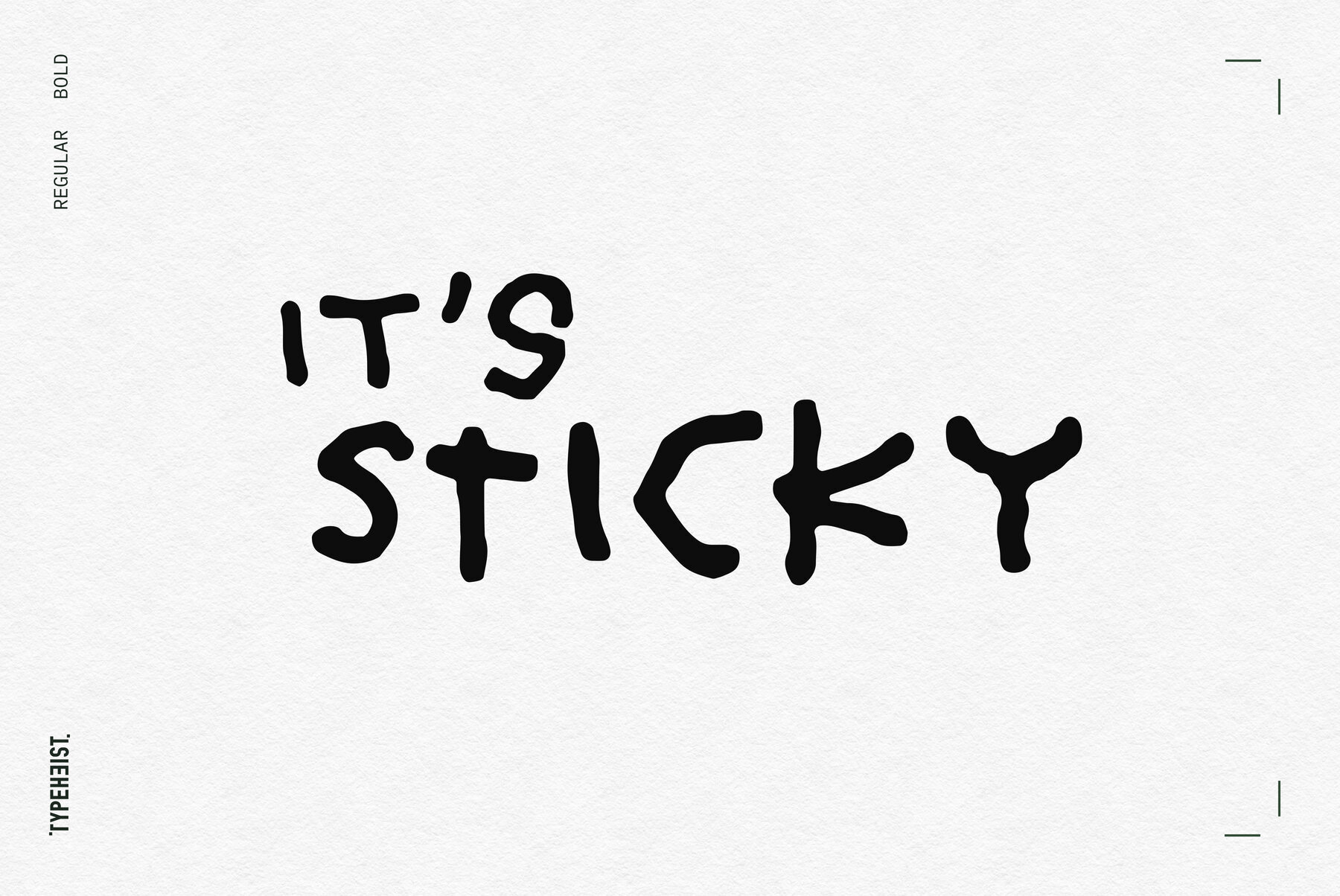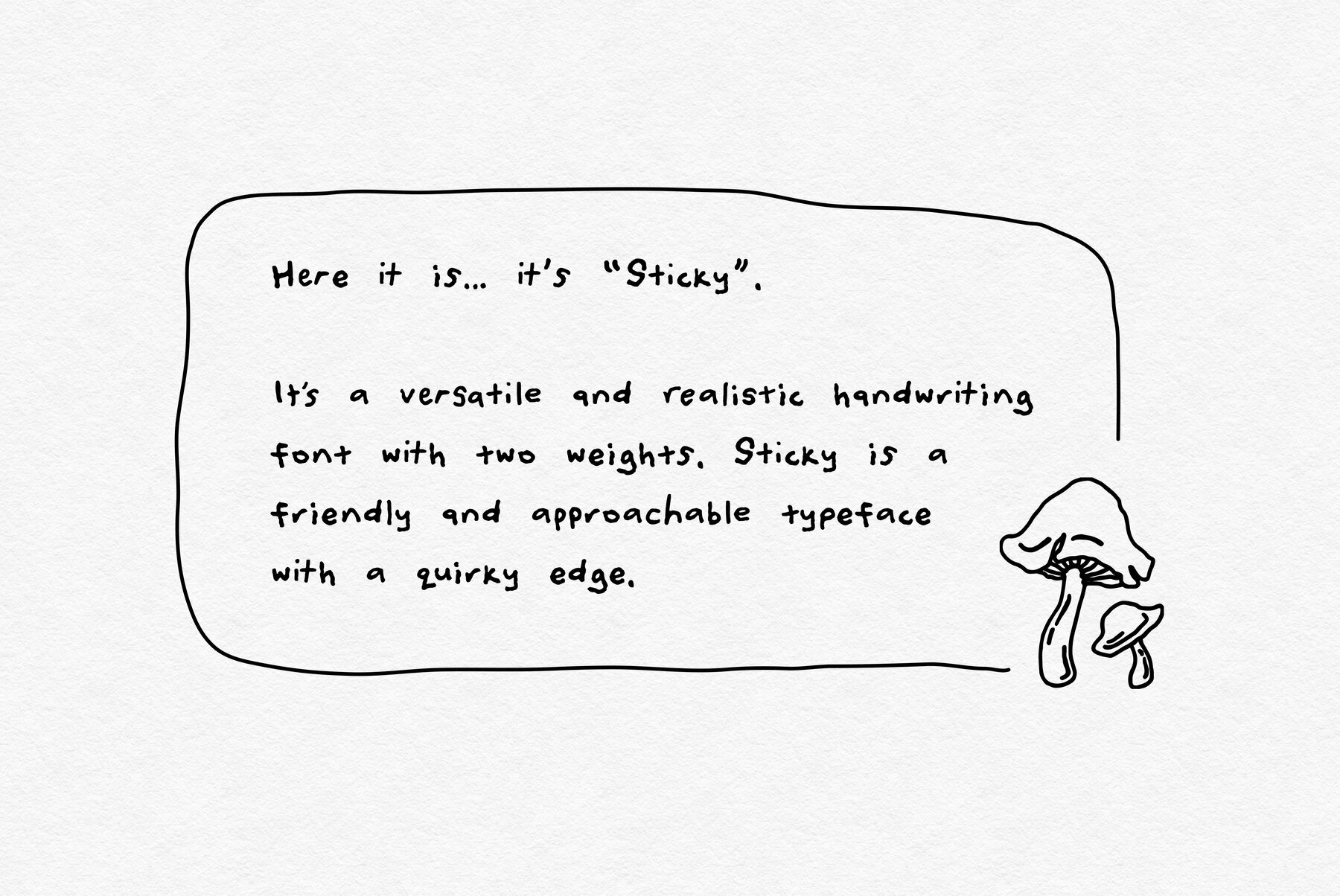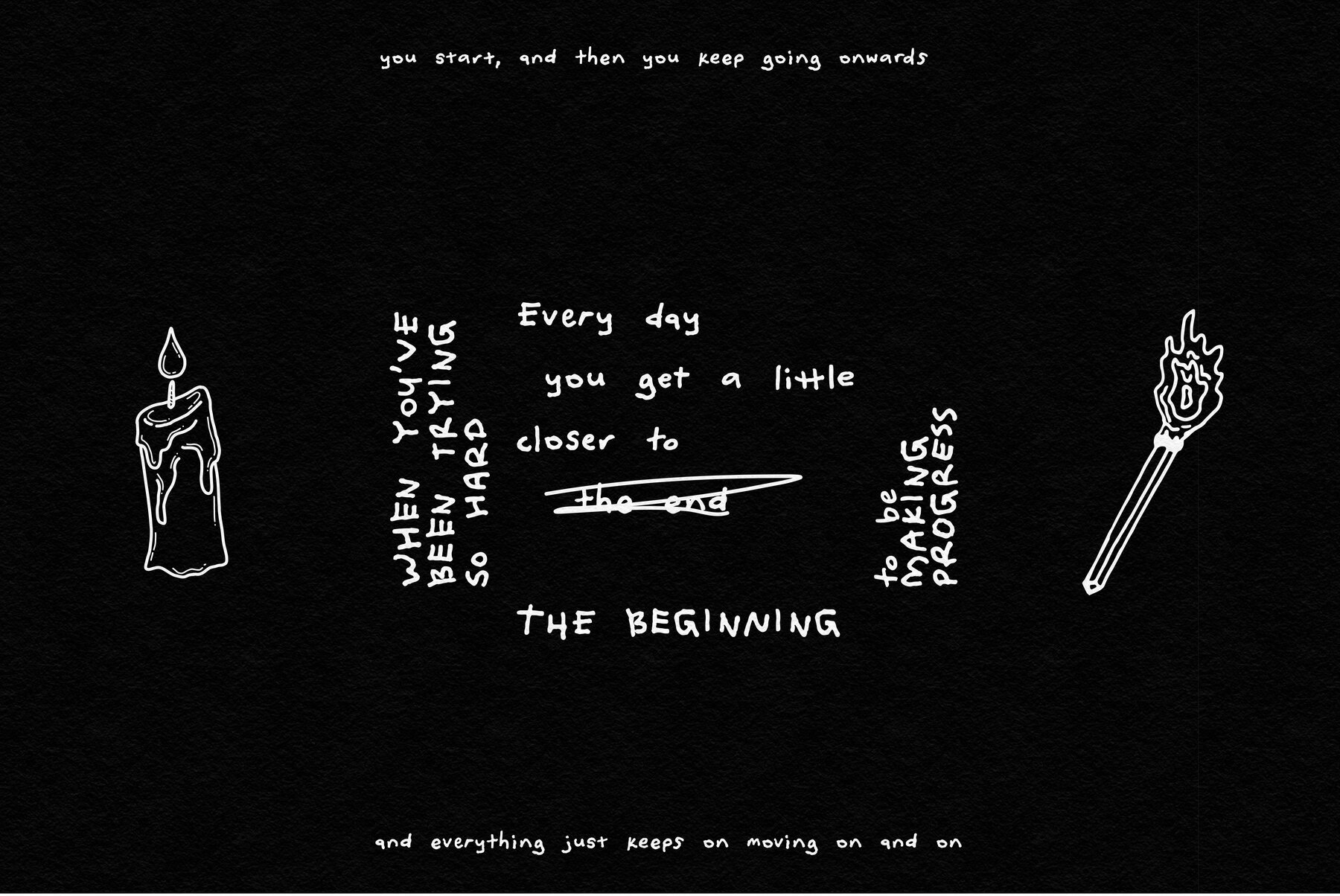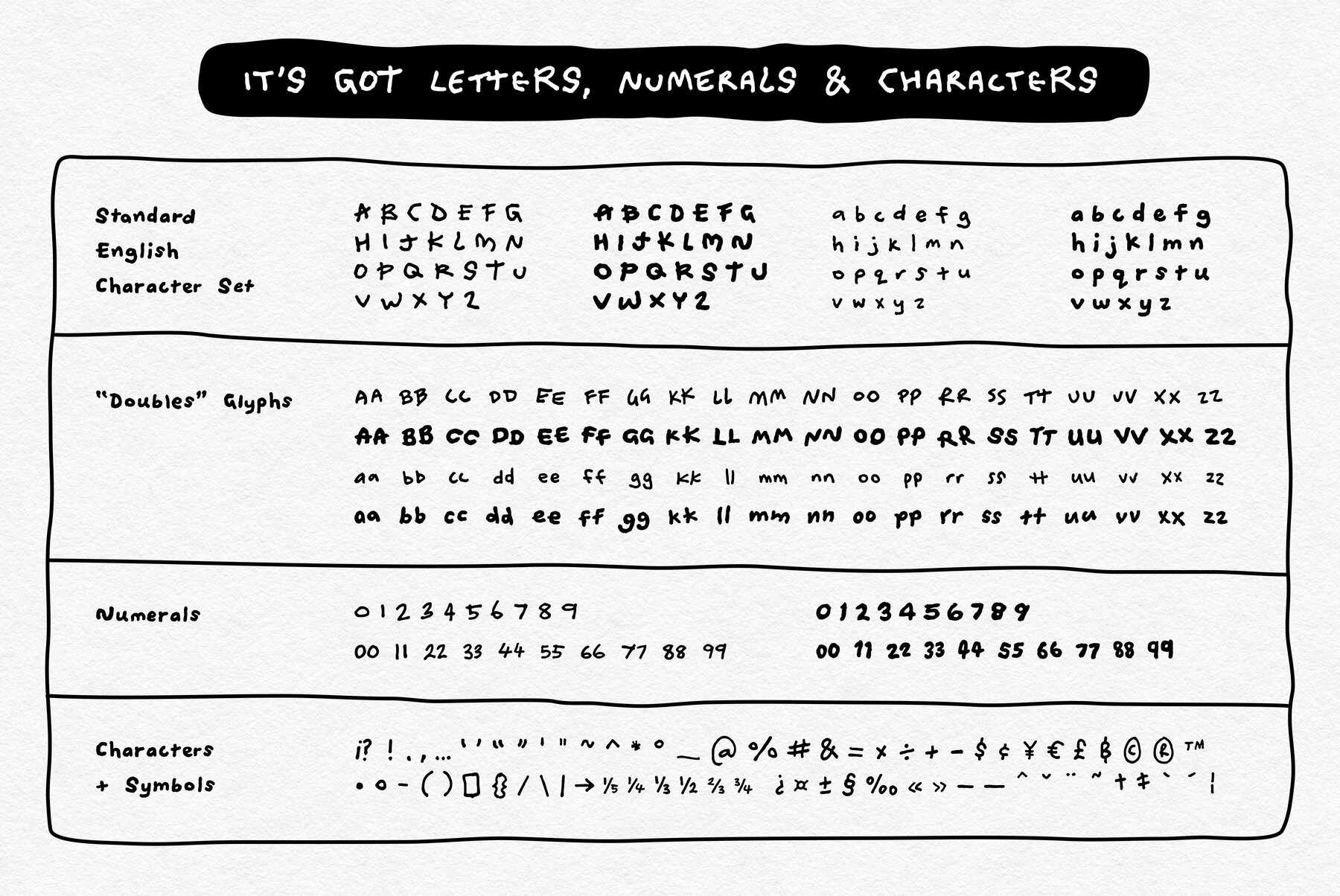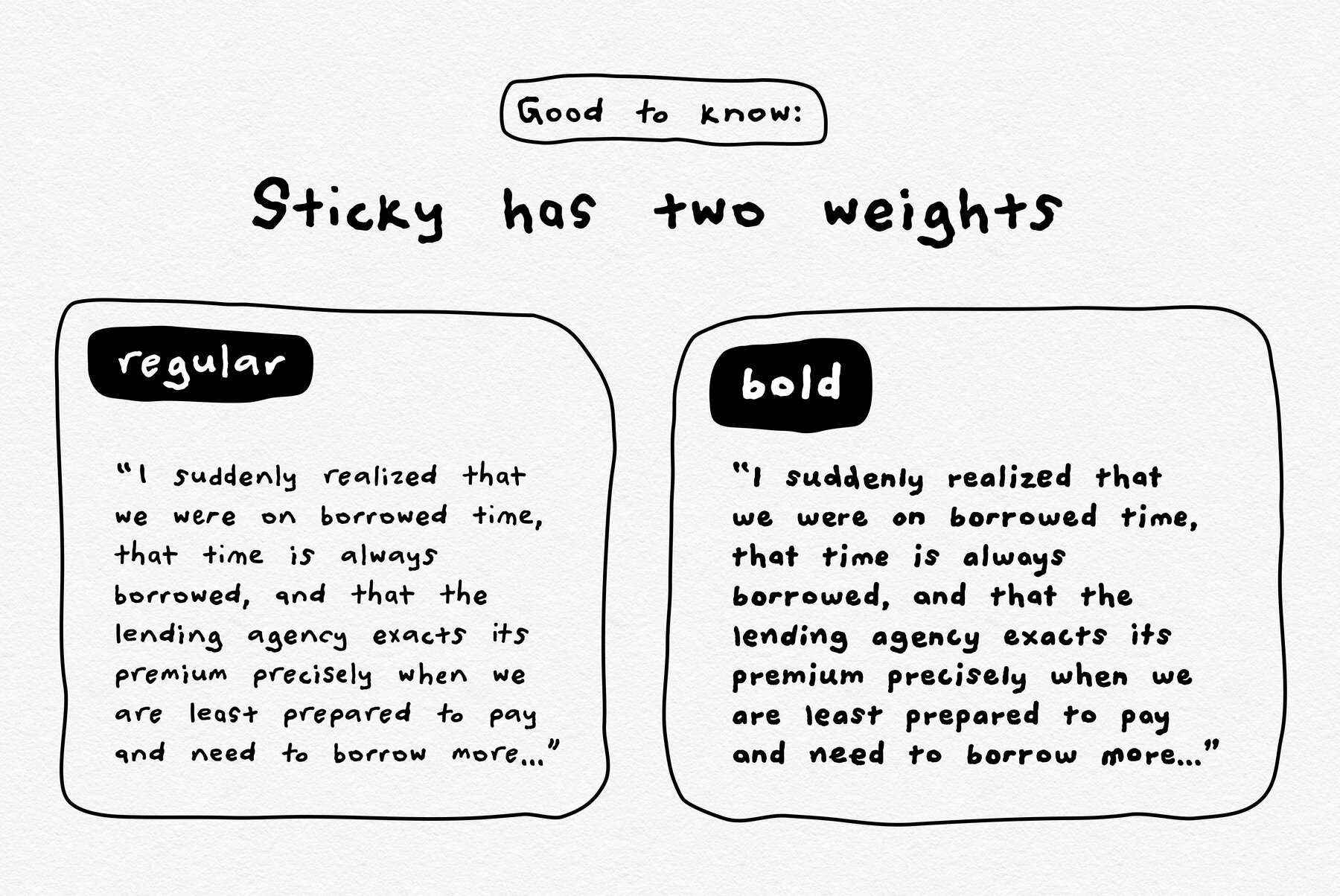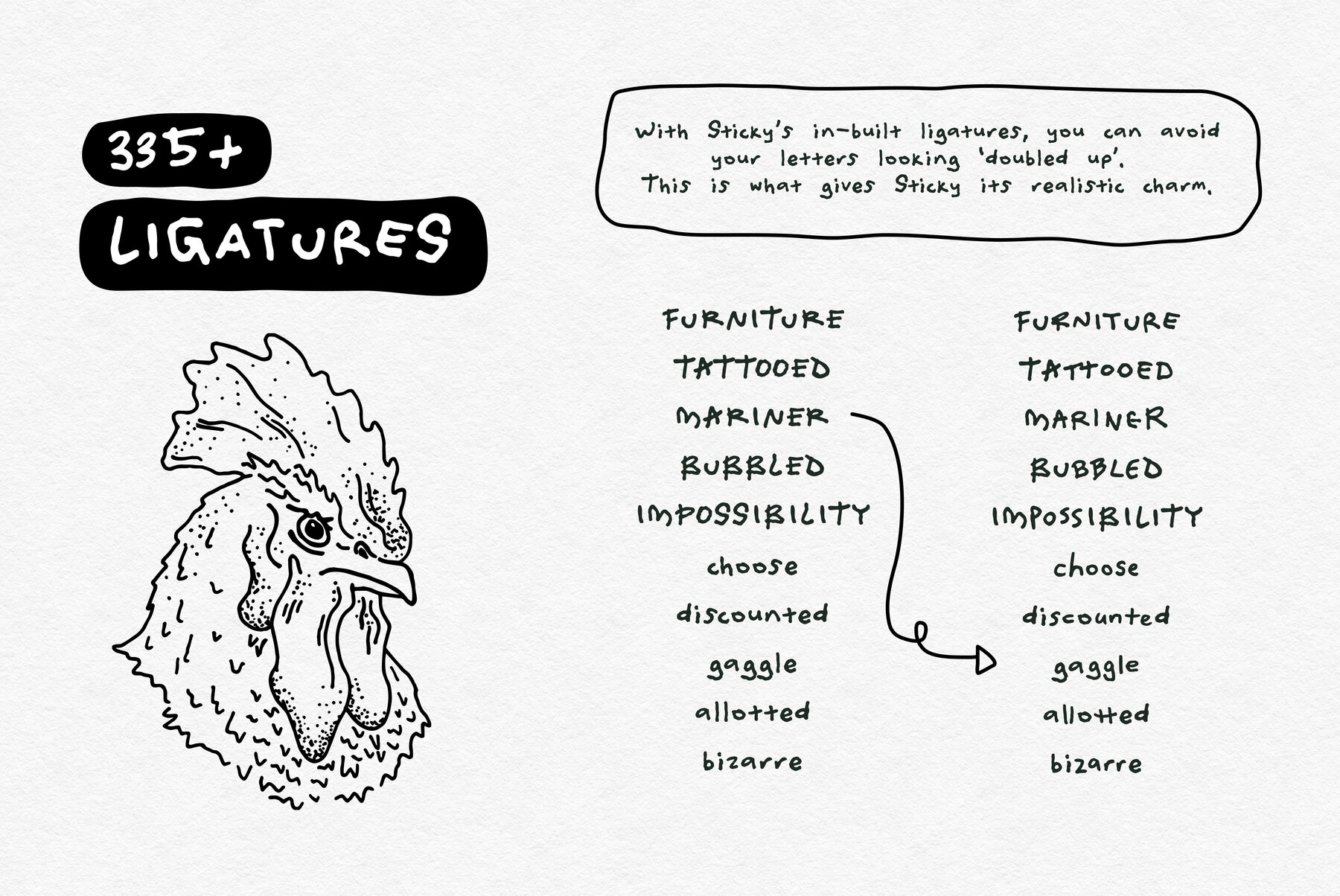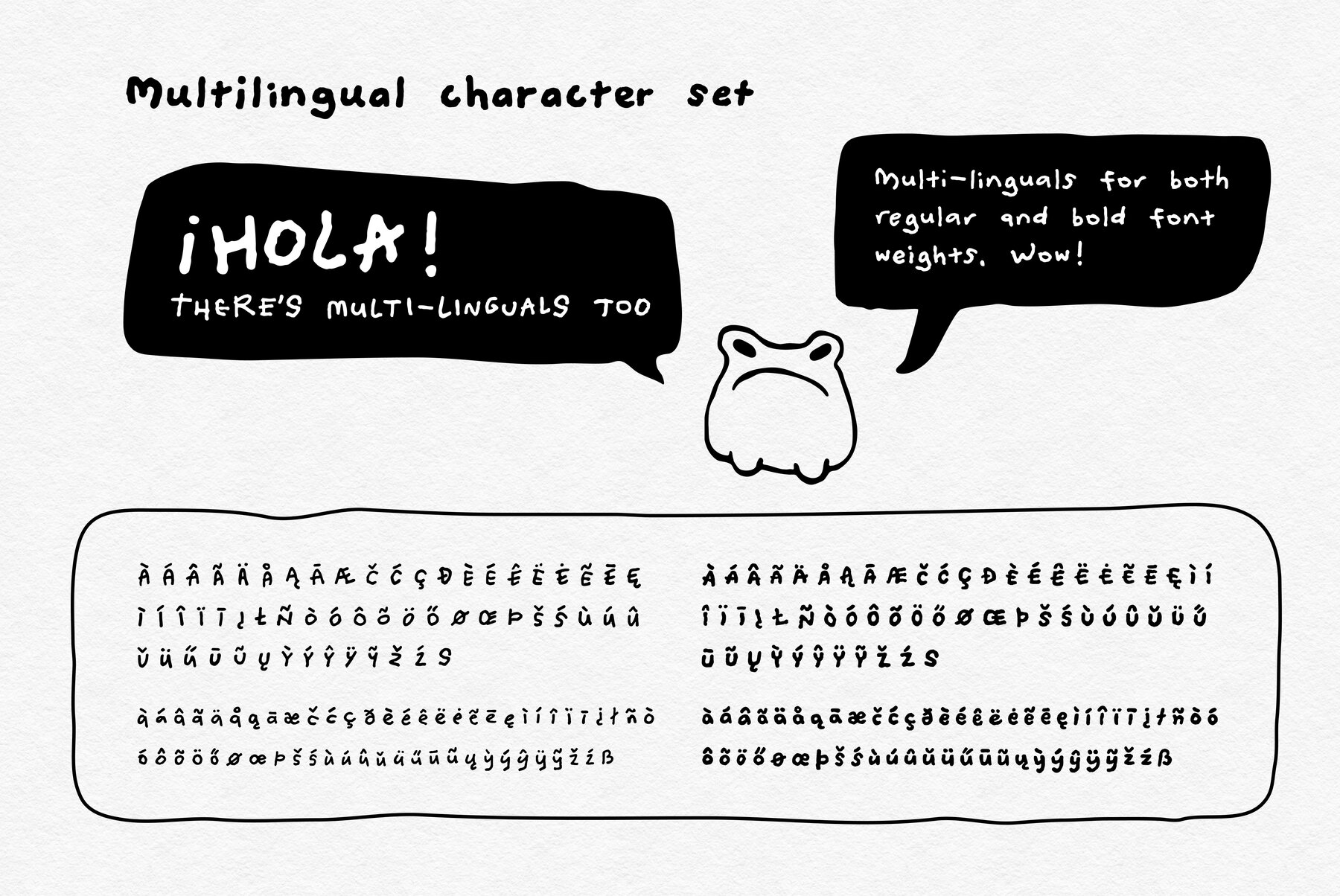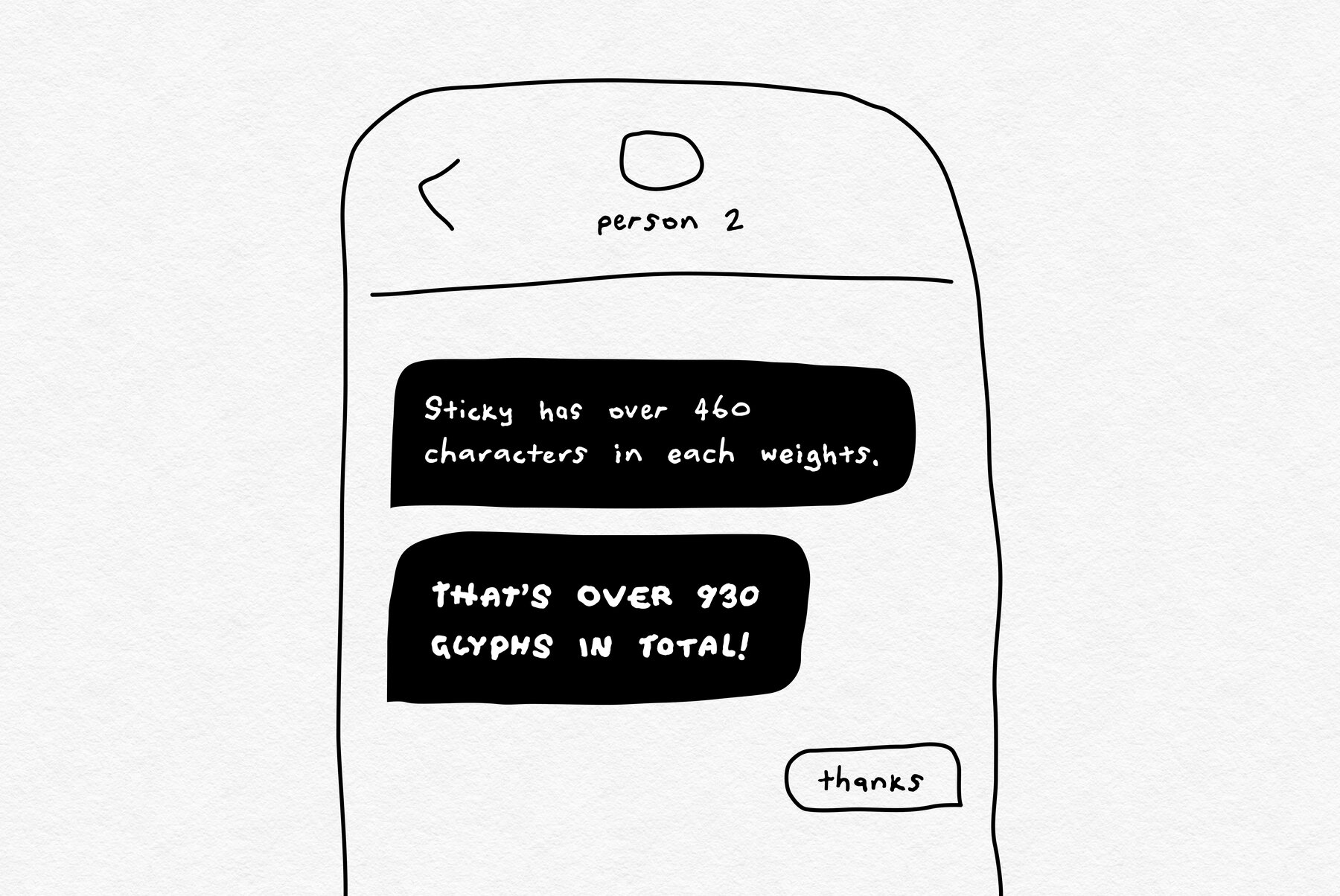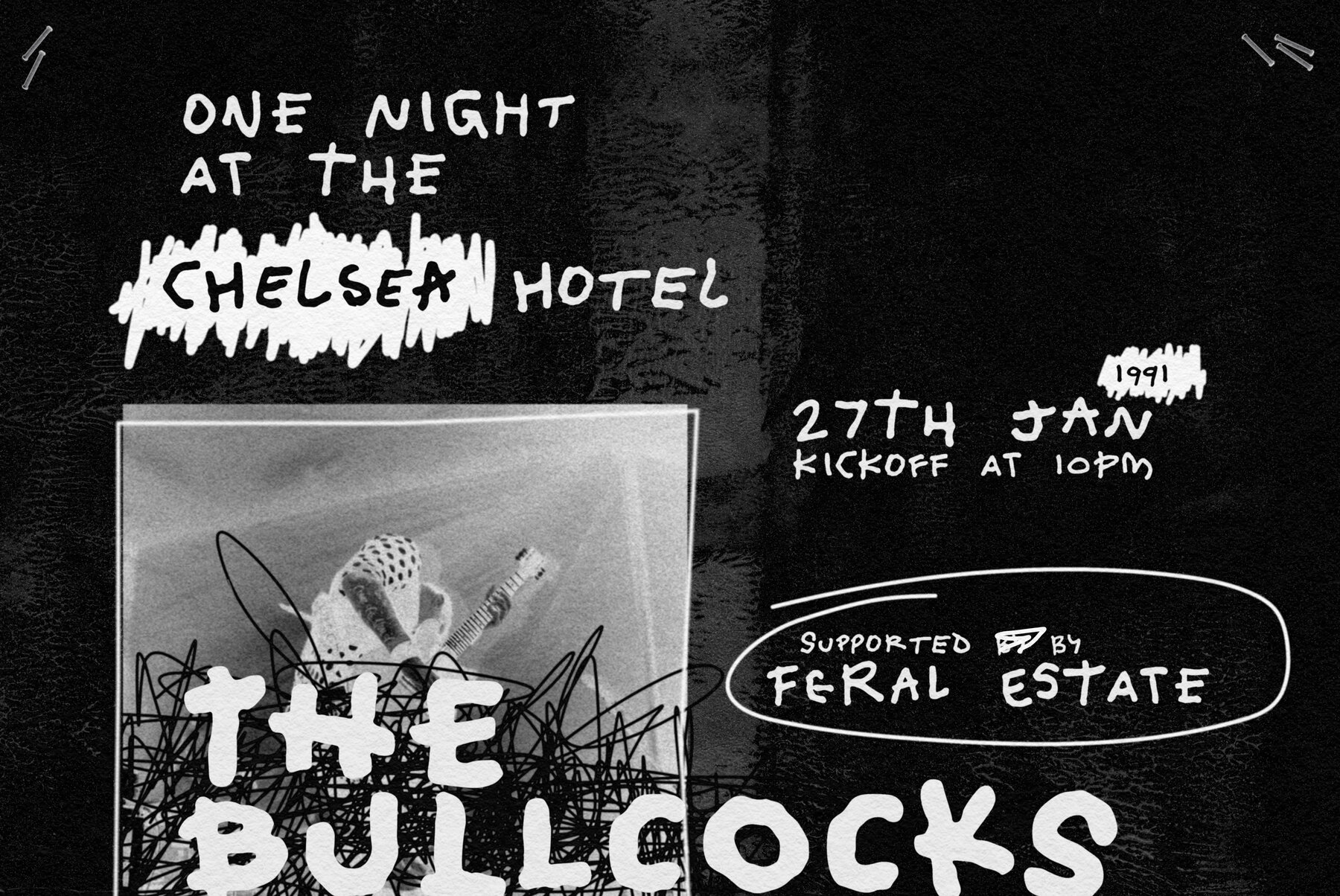
Sticky Font
Here it is: it’s Sticky. A versatile and realistic handwriting font with two weights, regular and bold. Sticky is a friendly and approachable typeface with a quirky edge. It’s packed with glyphs and ligatures, ensuring tonnes of variance and a dusting of charm. Sticky is a handwriting font that comfortably balances the fine line between uniqueness and legibility. At large sizes it’s eye-catching and distinctive. For smaller copy, it’s fun and playful while still being easy to read. It’s multi-lingual and includes over 460 characters in each weight, supporting languages such as French, Spanish, German, Hungarian and many more.